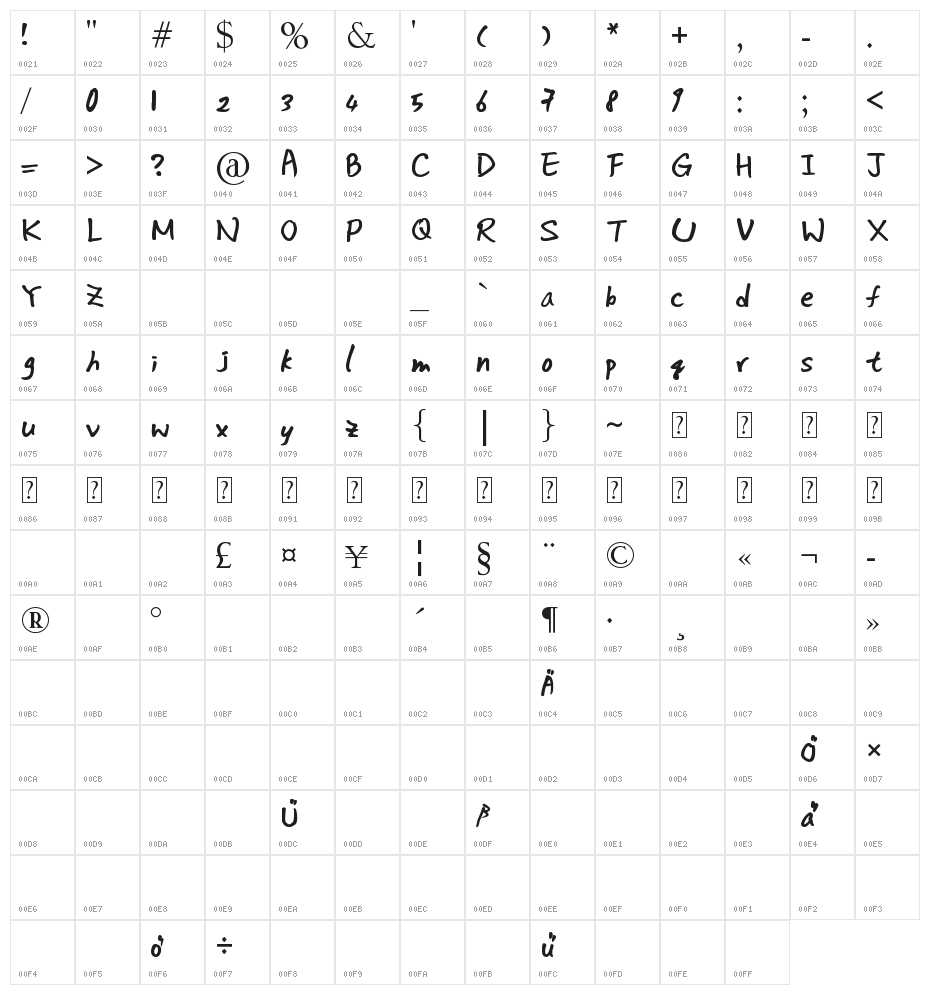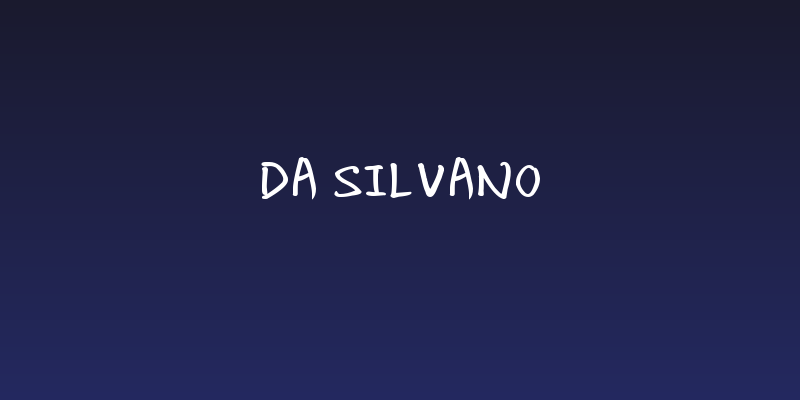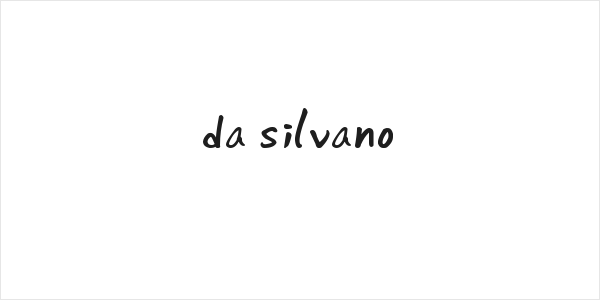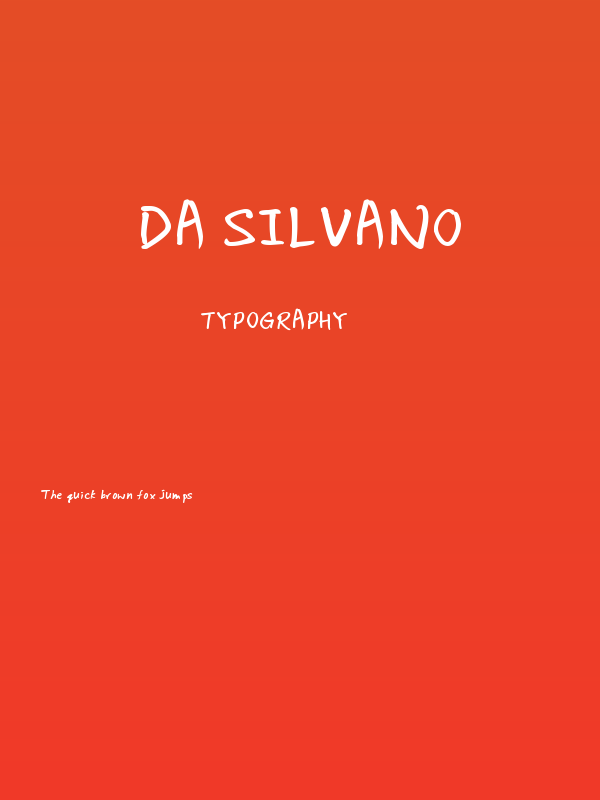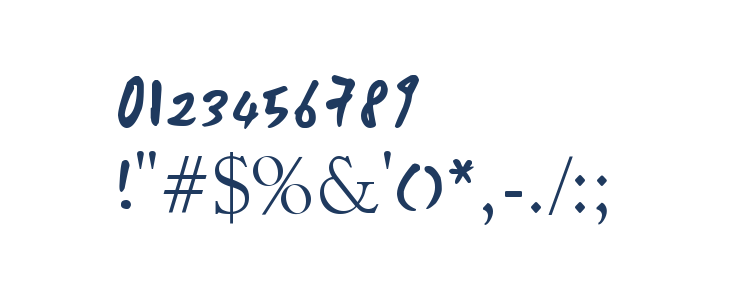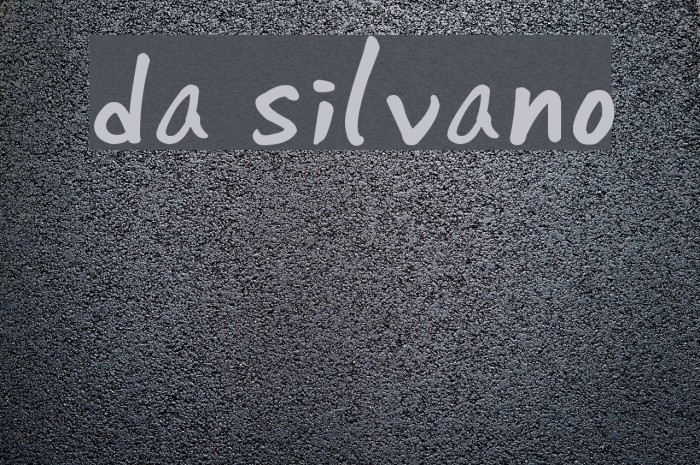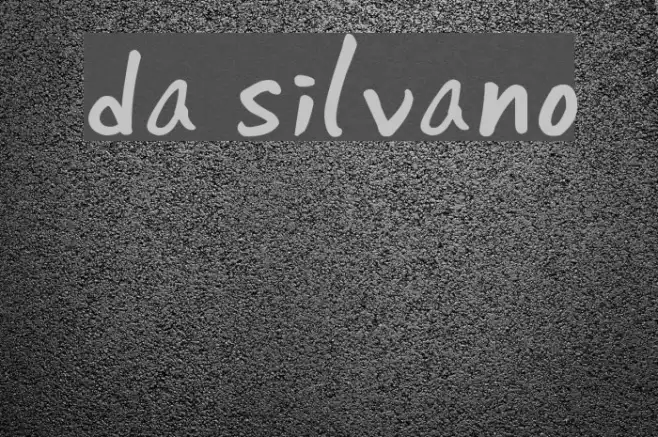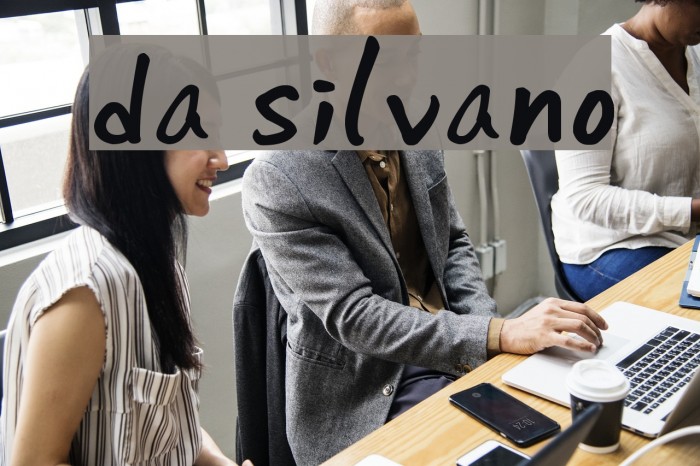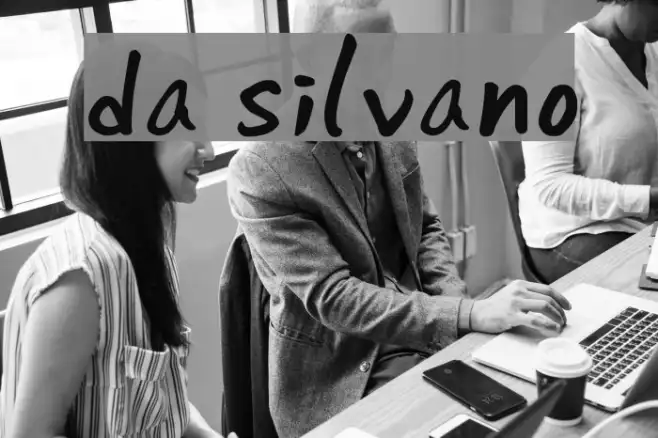
da silvano Font
da silvano Description
This font exudes a casual and playful handwritten style, characterized by its fluid and dynamic strokes. The letters are slightly slanted, giving a sense of movement and energy. The uppercase and lowercase letters maintain a consistent style, with rounded edges and varying stroke widths that add to its informal charm. The numerals and special characters follow the same aesthetic, ensuring a cohesive look across all text elements. This font is perfect for projects that require a personal touch, such as invitations, greeting cards, or branding materials that aim to convey friendliness and approachability.
DA-SILVANO UPPERCASE
DA-SILVANO LOWERCASE
DA-SILVANO OTHER CHARS
| Proposed Projects | Ideal for invitations, greeting cards, personal branding, and playful designs. |